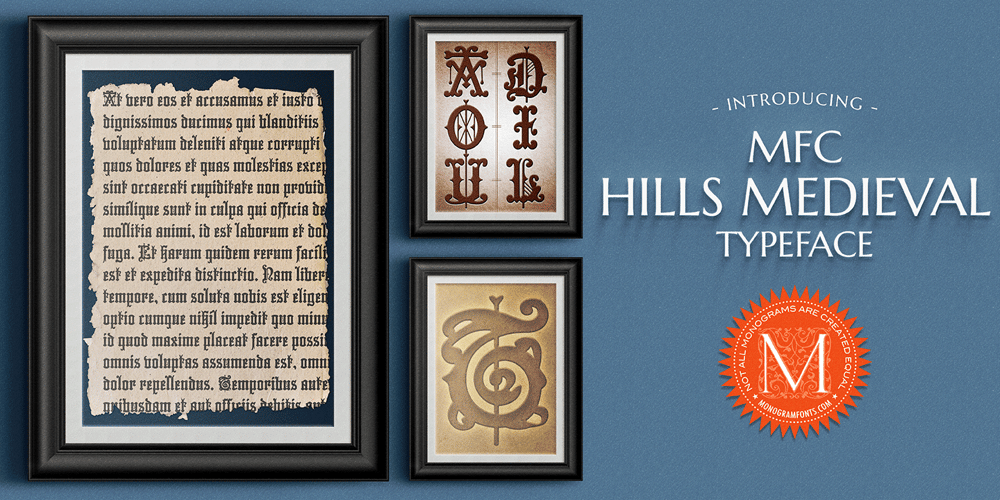
MFC Hills Medieval Font Family was designed by Brian J. Bonislawsky and published by Monogram Fonts Co.. MFC Hills Medieval contains 1 styles and family package options. MFC Hills Medieval was developed from a unique historical Blackletter type specimen in the 1882 Hills Manual of Social and Business Forms. While you could use its ornate capitals to construct a monogram, this is not a monogram font, but a fully functional typeface for invitations and period lettering. From stylish and ornate capitals to a soft lowercase resembling bled ink, this period lettering style is a true eye-catcher. Because of some of the unique medieval letterforms, standardized letterforms were created as the default typeable letters while the true historical forms were setup as Stylistic Alternates. A sophisticated Blackletter for manuscripts and invitations alike.